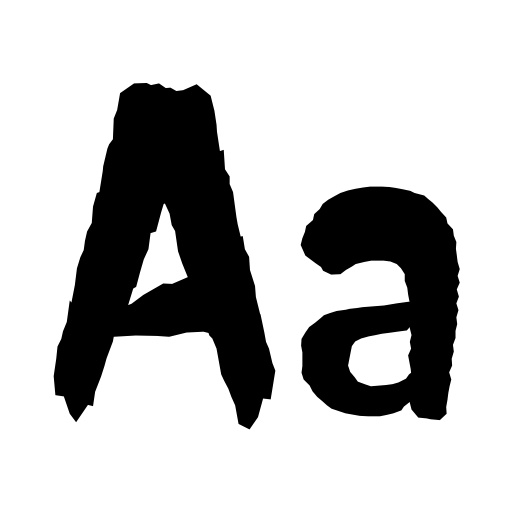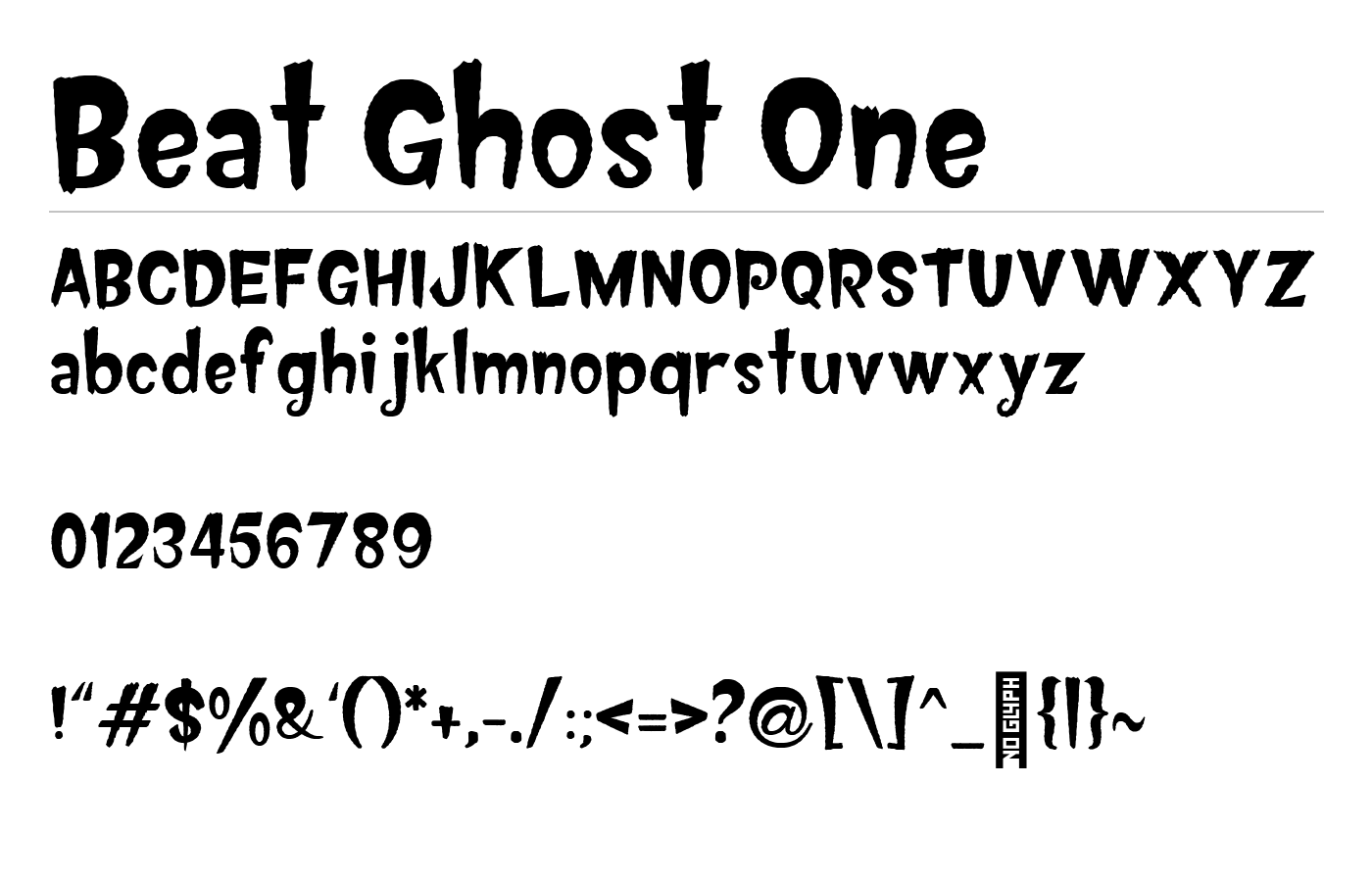
Beat Ghost One is a bold, playful sans serif font with irregular, hand-drawn strokes that give it an energetic, slightly spooky vibe. Its uneven letterforms and strong presence make it ideal for fun headlines, posters, and branding that seeks a quirky, informal personality. This font works well when you want to catch attention with a lively and unconventional style.
Beat Ghost One Font
About Beat Ghost One Font
| Font family | Beat Ghost One Font |
| Designer | Ni Nyoman Puspa Dewi |